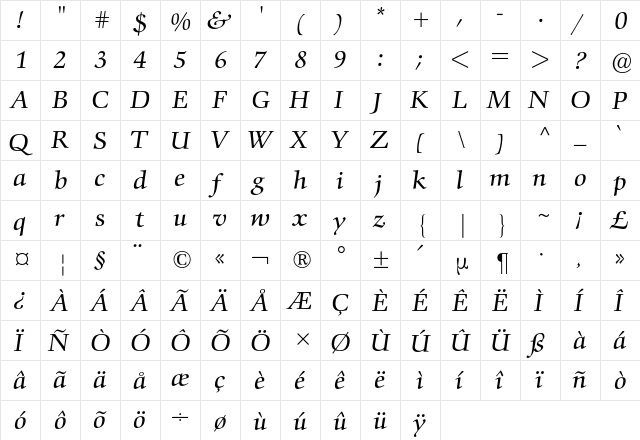
Comenius BQ Regular Font Preview
Comenius BQ Regular
Design Context for Comenius BQ Typeface
Comenius BQ is a composed and adaptable typeface that performs quietly and consistently across a wide range of design contexts.